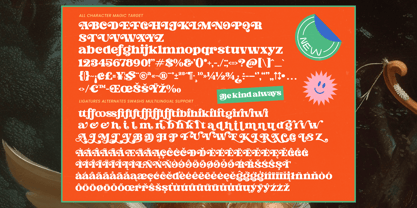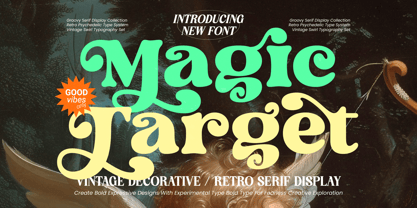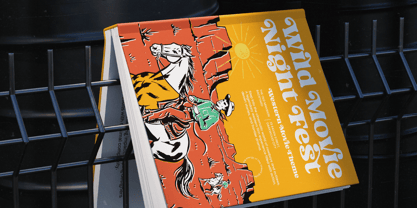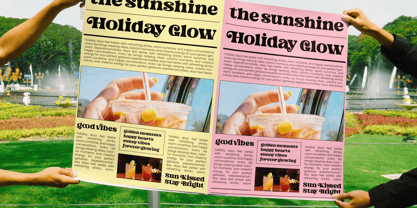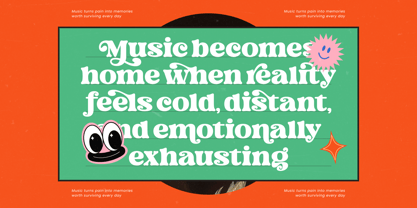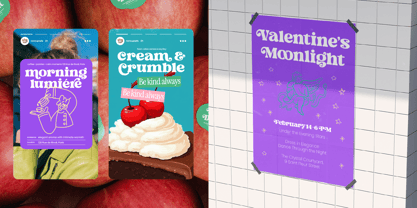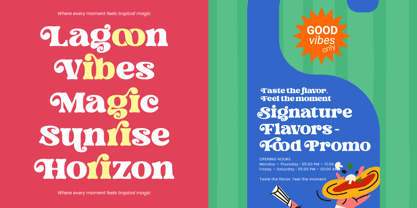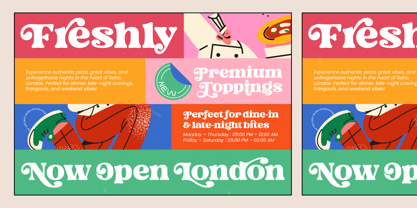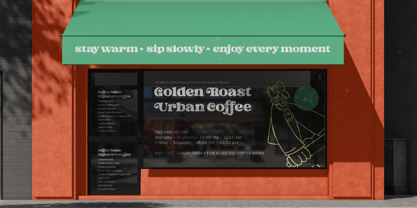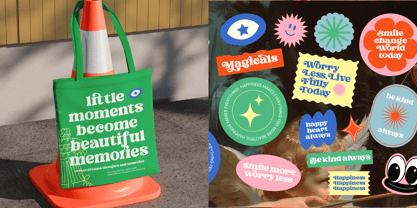
Magic Target
La familia tipográfica Magic Target fue diseñada por Heru Utama Putra y publicada por Timelesstype Studio. Magic Target contiene 2 estilos y opciones de paquete familiar. Más información sobre esta familia
Magic Target, a typeface designed to captivate and inspire. This font blends the whimsical energy of the past with a sophisticated contemporary edge that commands attention instantly.
Drawing inspiration from the kaleidoscopic dreamscapes of the late 1960s and early 70s, this collection evokes the spirit of vintage rock posters and psychedelic art. It channels the good vibes era through fluid curves and dramatic swirls that feel both mystical and groundedly classic.
This typeface delivers a powerful modern serif display aesthetic, perfect for those seeking luxury typography with a playful twist. With its high-contrast serif construction and unique silhouettes, it functions as a premium editorial font designed for maximum branding impact in any high-end project.